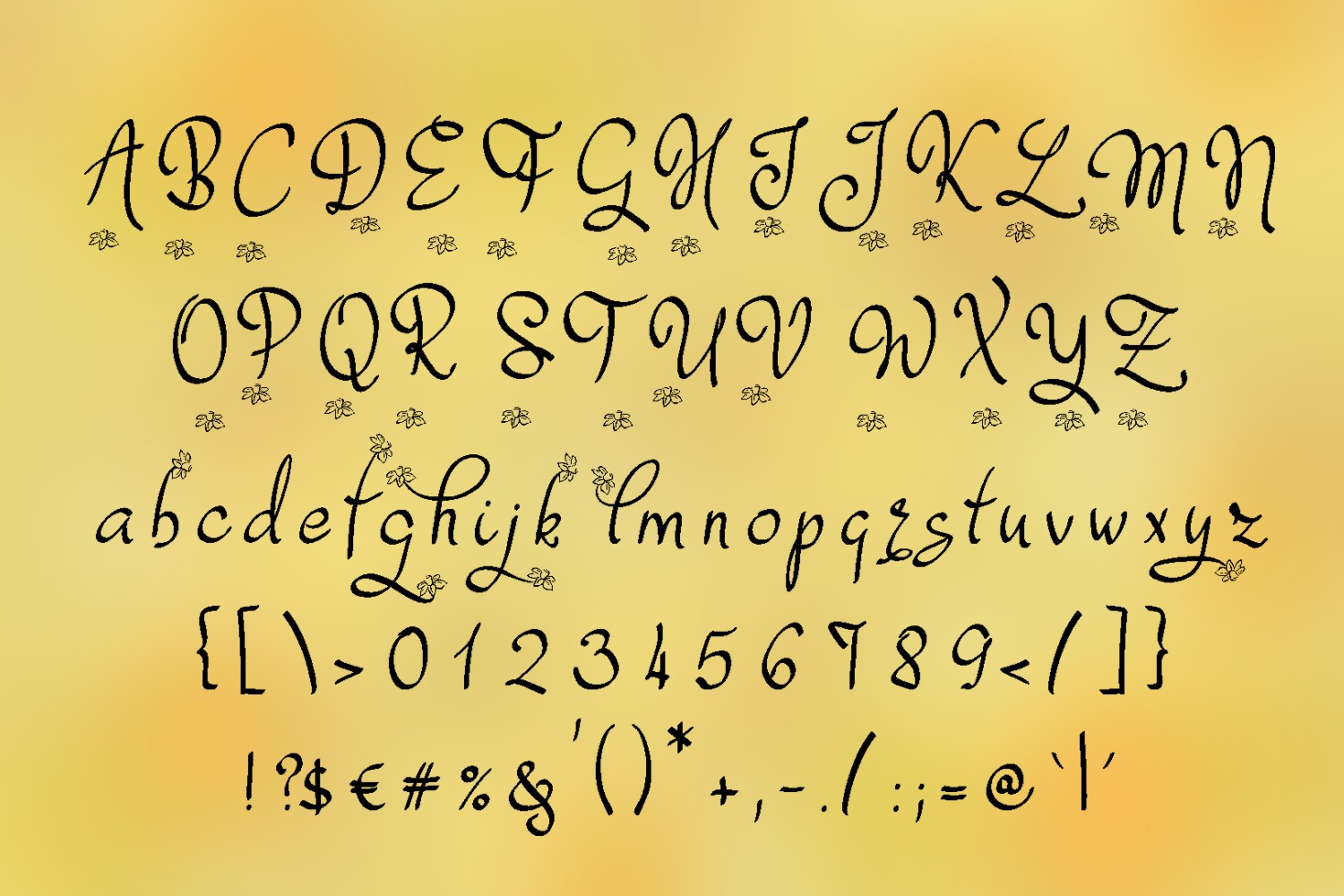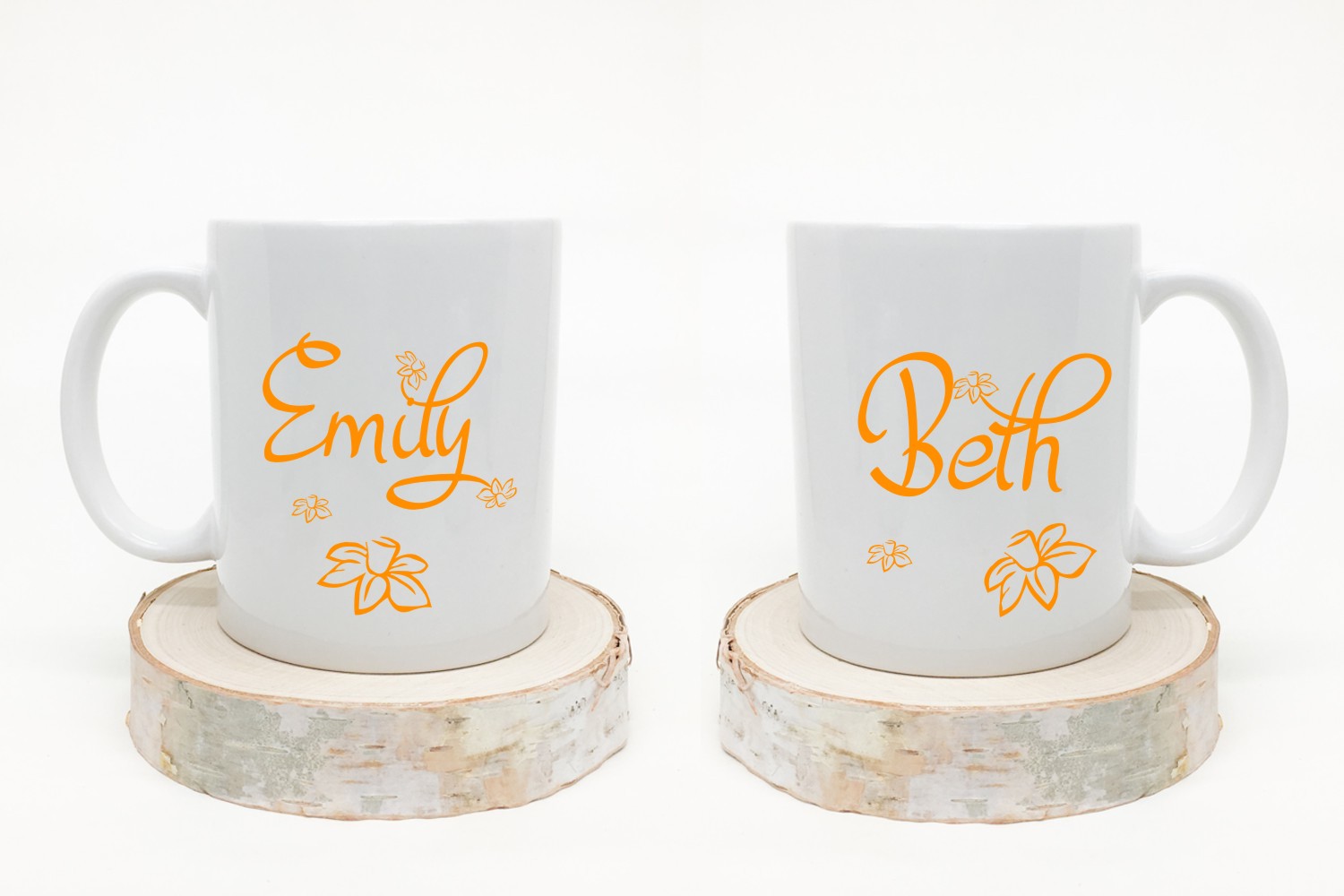
HomeScript FontsDafodyl Font Script Fonts Dafodyl Font FacebookXPinterestWhatsApp Dafodyl Font Poster 2 Dafodyl Font Poster 3 About Dafodyl Font Dafodyl is a floral decorated handwritten typeface. DOWNLOAD ON CREATIVE FABRICAThis font is sold and delivered by Creative Fabrica. Font Canyon may earn a commission if you buy through this link. People also explored Sebastien Jersey Font Sunkissed Font Stripe Calm Font Jack Scary Font Hello Spooky Font Hapyster Font Good Job Sticker Pack Font Morningside Monogram 271 0 TagsDafodyl Font Previous articleExpress Yourself FontNext articleBerallya Font LEAVE A REPLY Cancel reply Comment: Please enter your comment! Name:* Please enter your name here Email:* You have entered an incorrect email address! Please enter your email address here Website: Save my name, email, and website in this browser for the next time I comment. Personal Use Free Fibon Personal Use Free Read more about this font Maharany Personal Use Free Read more about this font Cuttering Personal Use Free Read more about this font Hollster Personal Use Free Read more about this font BLOG Top 7 Google Fonts Alternatives for Faster and Privacy-Friendly Web Design (2025) Top 7 Google Fonts Alternatives for Faster and Privacy-Friendly Web Design (2025) When it comes to web typography, Google Fonts has long been the go-to... Exploring Font Trends To increase your work productivity, choose the most readable fonts. Best Fonts for YouTube Videos: Make Your Thumbnails Stand Out